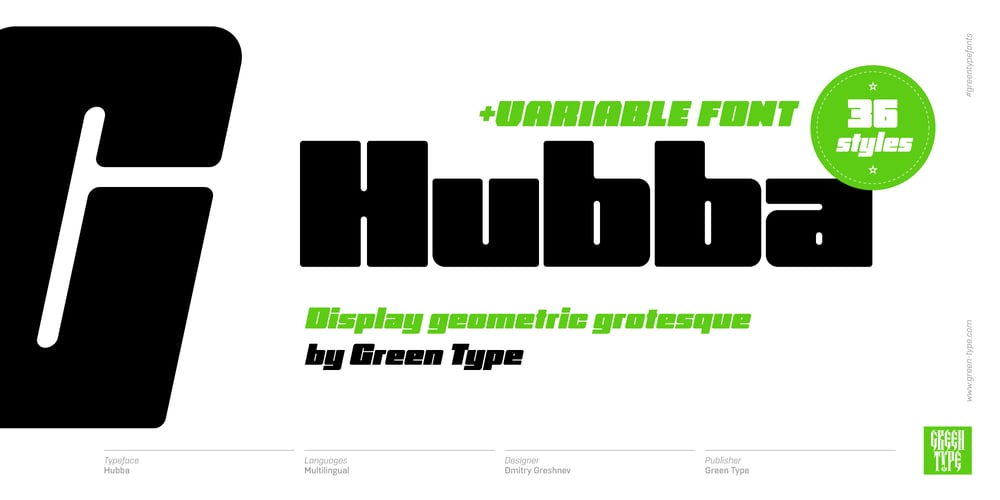
Hubba Font Family was designed by Dmitry Greshnev and published by Green Type. Hubba contains 37 styles and family package options. Hubba is a modular geometric typeface. Its heavy weight is excellent for headlines and display. There is a plain, oblique, and opposite oblique styles. The variable version will give you the opportunity to be more free in design and not limited to standard styles.